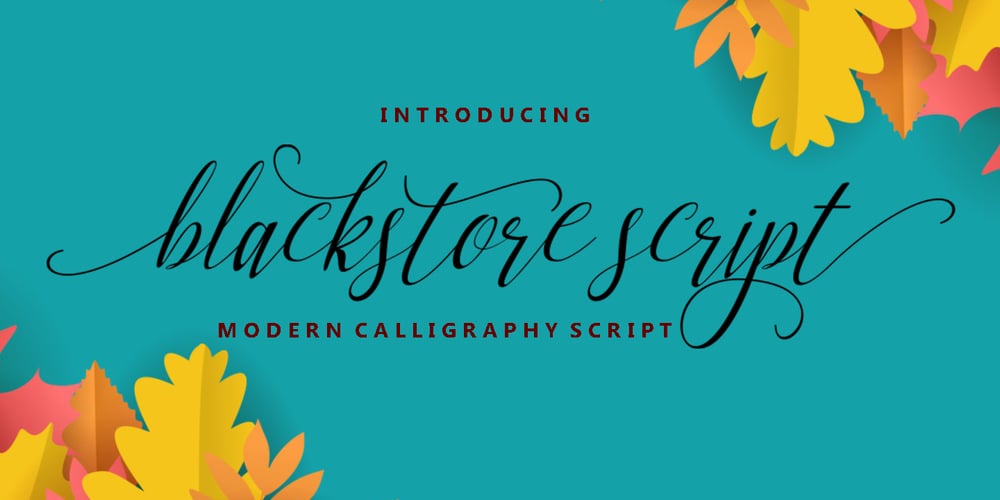
Blackstore Script Font Family was designed by Teuku Saifullah and published by Shape Studio. Blackstore Script contains 1 styles and family package options. Blackstore Script is a new modern script calligraphy font with an irregular baseline. It looks lovely on wedding invitations, thank you cards, quotes, greeting cards, logos, business cards and more. Perfect for using in ink or watercolour. Including initial and terminal letters, alternates, ligatures and multiple language support. To enable the OpenType Stylistic alternates, you need a program that supports OpenType features such as Adobe Illustrator CS, Adobe Indesign & CorelDraw X6-X7, Microsoft Word 2010 or later versions. There are additional ways to access alternates/swashes, using Character Map (Windows), Nexus Font (Windows), Font Book (Mac) or a software program such as PopChar (for Windows and Mac).Thanks so much for looking and please let me know if you have any questions.